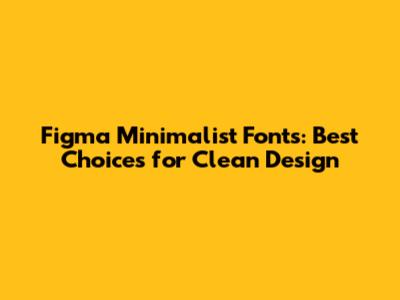
- Readability: The primary goal of any font is to be readable. Ensure that the font is clear and easy to read at various sizes and weights. Test it in different contexts to see how it performs.
- Versatility: A versatile font can be used in various design elements, from headings to body text. Choose a font that offers multiple weights and styles to provide flexibility in your design.
- Consistency: Ensure that the font aligns with your brand's overall aesthetic. It should complement your logo, color scheme, and other design elements to create a cohesive look.
- Context: Consider where the font will be used. A font that looks great on a website might not be as effective in print. Choose a font that is optimized for the specific medium you're working with.
- Pairing: Think about how the font will pair with other fonts in your design. A good font pairing can enhance the overall aesthetic and create visual interest. Experiment with different combinations to find the perfect match.
- Use Styles: Create text styles to maintain consistency throughout your design. Styles allow you to save font settings and apply them to multiple text elements with a single click.
- Experiment with Weights and Sizes: Don't be afraid to experiment with different weights and sizes to create visual hierarchy and emphasize key elements. Figma makes it easy to adjust these settings and see the results in real-time.
- Adjust Line Height and Letter Spacing: Fine-tune the line height and letter spacing to improve readability and create a more polished look. These settings can have a significant impact on the overall appearance of your text.
- Use Plugins: Explore Figma's plugin library for tools that can help you manage and manipulate fonts. There are plugins for everything from font pairing to generating font scales.
- Test on Different Devices: Always test your designs on different devices to ensure that the fonts look good and are readable. Figma's preview feature allows you to see how your designs will appear on various screens.
Choosing the right font is crucial in design, especially when aiming for a minimalist aesthetic. With Figma, you have a plethora of options, but selecting the perfect font can make or break your design. This article will guide you through some of the best minimalist fonts available in Figma, helping you create clean, elegant, and effective designs. So, guys, let's dive in and explore the world of minimalist typography!
Why Minimalist Fonts Matter
Minimalist fonts are essential for creating designs that are clean, modern, and easy to read. These fonts often feature simple, uncluttered letterforms, making them ideal for projects where clarity and simplicity are key. Using a minimalist font can help you achieve a sophisticated look without overwhelming the viewer. Moreover, these fonts tend to be highly versatile, working well in a variety of contexts, from web design to print materials.
When it comes to user experience (UX), minimalist fonts play a significant role. A clean typeface improves readability, ensuring that users can quickly and easily understand the information presented. This is particularly important for websites and apps, where users are often bombarded with information and have short attention spans. By choosing a minimalist font, you can enhance the overall UX and make your design more accessible.
Moreover, minimalist fonts contribute to a sense of professionalism and sophistication. They convey a sense of order and attention to detail, which can be particularly important for brands that want to project an image of competence and reliability. In contrast, using overly decorative or complex fonts can make your design look cluttered and unprofessional. Therefore, selecting the right minimalist font is a critical step in creating a design that effectively communicates your message and reflects your brand values.
Consider the impact of typography on your overall design. Fonts are not just about aesthetics; they also play a crucial role in conveying the tone and personality of your brand. A minimalist font can help you create a sense of calm and sophistication, while a more playful font can convey a sense of fun and energy. By carefully considering the message you want to communicate, you can choose a font that effectively supports your overall design goals. So, always think about the bigger picture when selecting your fonts, and make sure they align with your brand identity and target audience.
Top Minimalist Fonts for Figma
Selecting the right font can be a daunting task, but fear not! Here are some of the top minimalist fonts that work wonderfully in Figma, ensuring your designs are both elegant and effective. These fonts have been chosen for their versatility, readability, and overall aesthetic appeal.
1. Lato
Lato is a sans-serif typeface designed by Łukasz Dziedzic. It strikes a perfect balance between friendliness and professionalism, making it an excellent choice for a wide range of projects. Its semi-rounded details give it a warm feel, while its strong structure ensures readability even at small sizes. Lato is incredibly versatile and works well in both body text and headlines.